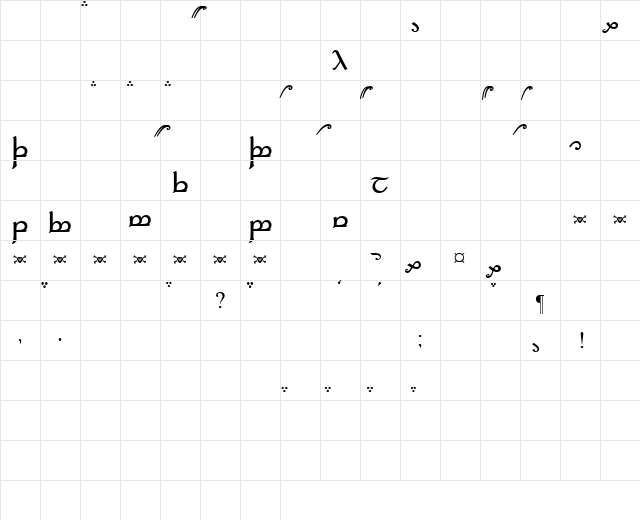
Tengwar Elfica A Regular
Design Context for Tengwar Elfica A Typeface
Tengwar Elfica A offers clean, dependable letterforms without strong stylistic allegiance, making it a practical choice for designers who need flexibility.